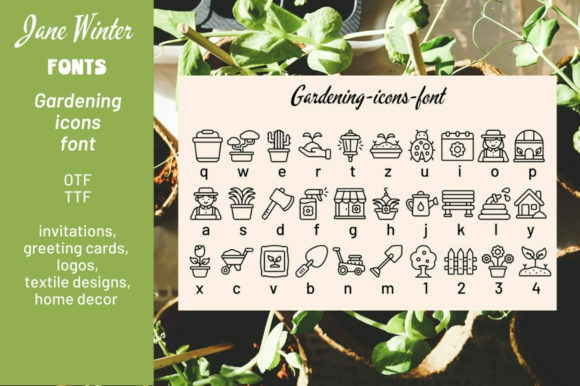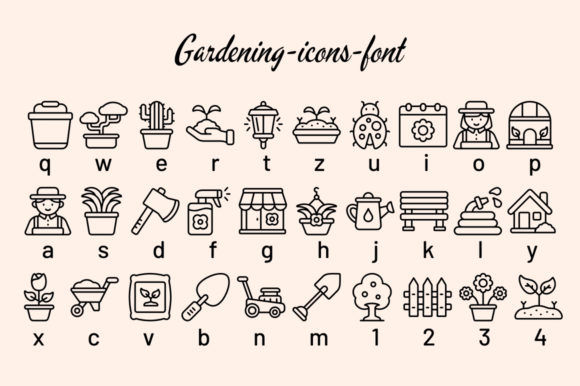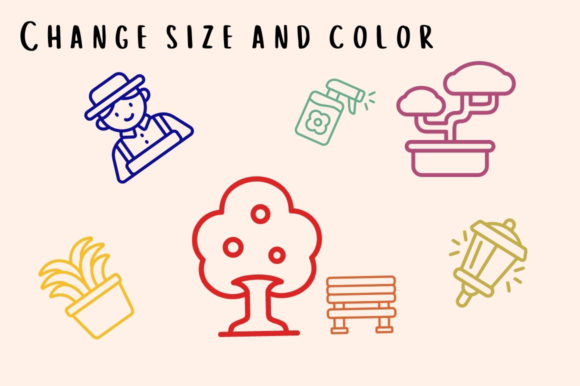
“Gardening Icons” is a delightful dingbats font featuring a collection of 30 icons representing various gardening and plants-related objects. This font is perfect for adding a touch of nature and greenery to your designs. Here are some creative ways to incorporate the “Gardening Icons” font into your projects:
1. Website Design: Use the icons from the “Gardening Icons” font as decorative elements on gardening websites. Place them as borders or dividers between sections or use them to highlight specific features such as plant care tips, gardening tools, or plant varieties.
2. Invitations and Stationery: Enhance your gardening-themed invitations, stationery, or event announcements with the charming icons from the font. Incorporate icons of flowers, plants, watering cans, shovels, or gardening gloves to create borders, frames, or accents that align with the theme.
3. Home Decor and DIY Projects: Bring the beauty of the garden into your home decor or DIY projects using the “Gardening Icons” font. Use the icons to create stencils for wall art, add them to plant labels, create custom garden signs, or incorporate them into gardening journals or scrapbooks.
4. Social Media Graphics: Create eye-catching social media graphics for gardening enthusiasts by integrating the “Gardening Icons” font. Use the icons to embellish posts about gardening tips, plant care, or showcasing beautiful gardens. They can also be used as icons for highlight covers or story graphics.
5. Packaging and Branding: If you have a gardening-related business, consider using the “Gardening Icons” font in your packaging and branding materials. Use the icons on labels, tags, or packaging designs to reflect the nature-centric focus of your products.
6. Educational Resources: If you’re creating educational materials about gardening or plants, the “Gardening Icons” font can be a valuable addition. Use the icons to represent different types of plants, gardening techniques, or as visual aids in presentations or worksheets.
Remember to have fun and experiment with the different icons and their arrangements. The “Gardening Icons” font offers a diverse range of symbols that can be combined to create unique and appealing designs. Let your creativity bloom and enjoy adding a touch of nature to your projects with this charming dingbats font!
In summary, “Gardening Icons” is a unique and cute dingbats font containing 30 icons of different gardening and plants-related objects. Whether you’re designing websites, invitations, home decor, social media graphics, packaging, or educational resources, this font will add a delightful touch to your designs and capture the essence of gardening. Happy designing!